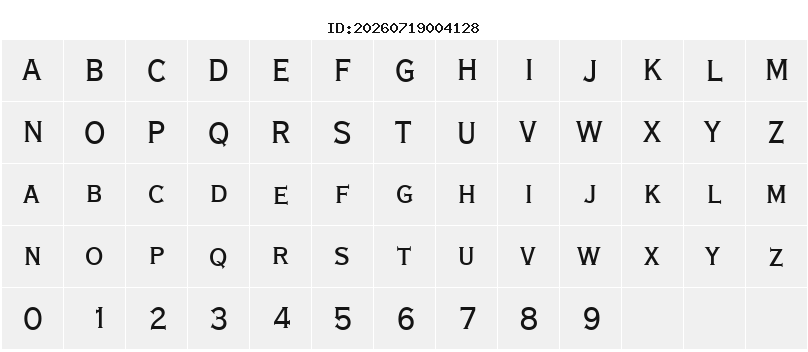
• Font Name: Copperplate-Cd
• Designer: SoftMaker Software GmbH
About Copperplate-Cd.ttf
Copperplate-Cd.ttf is a modern, elegant sans-serif font designed for ultimate readability and visual harmony. Perfect for branding, headlines, web design, and print materials.